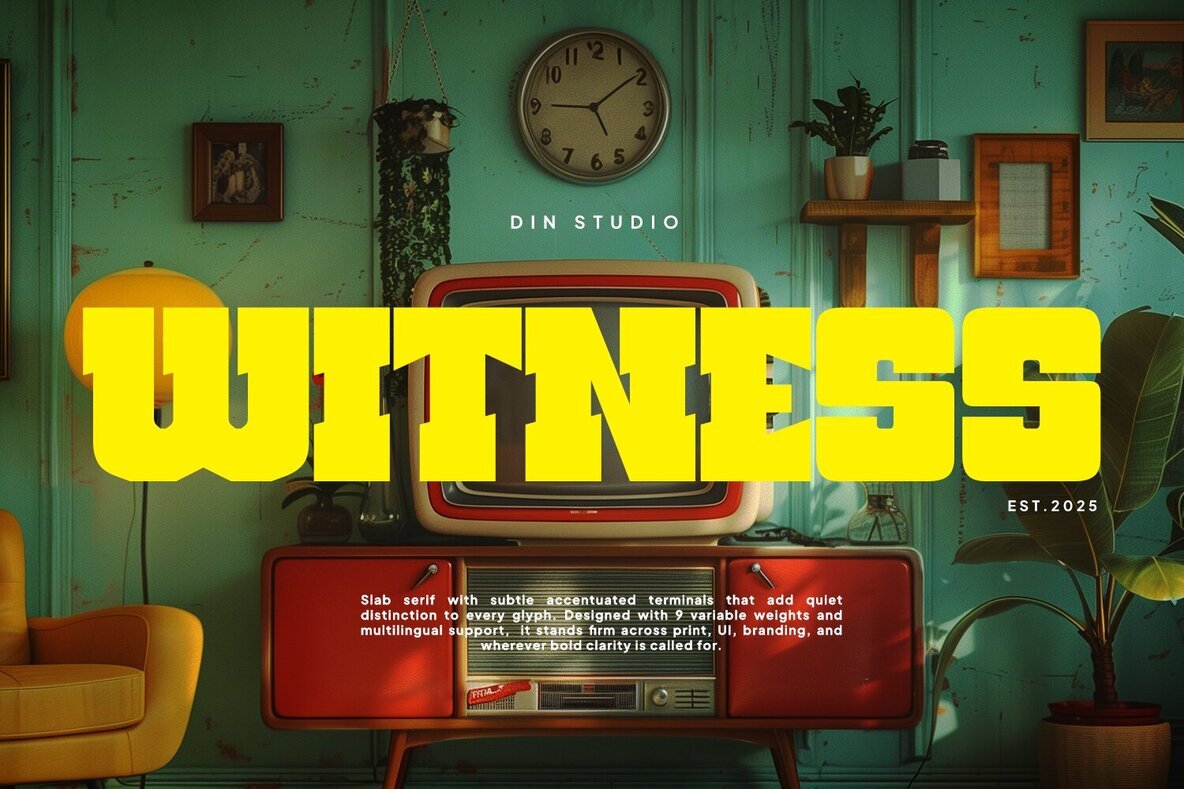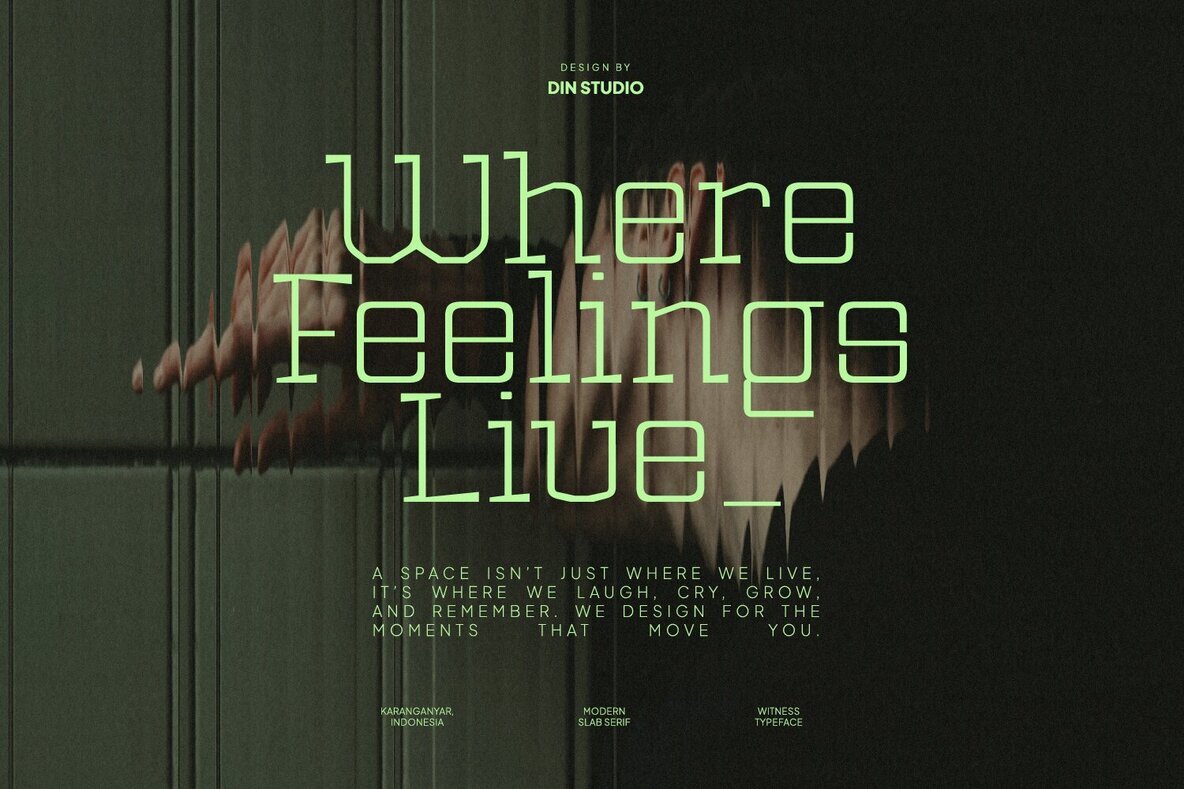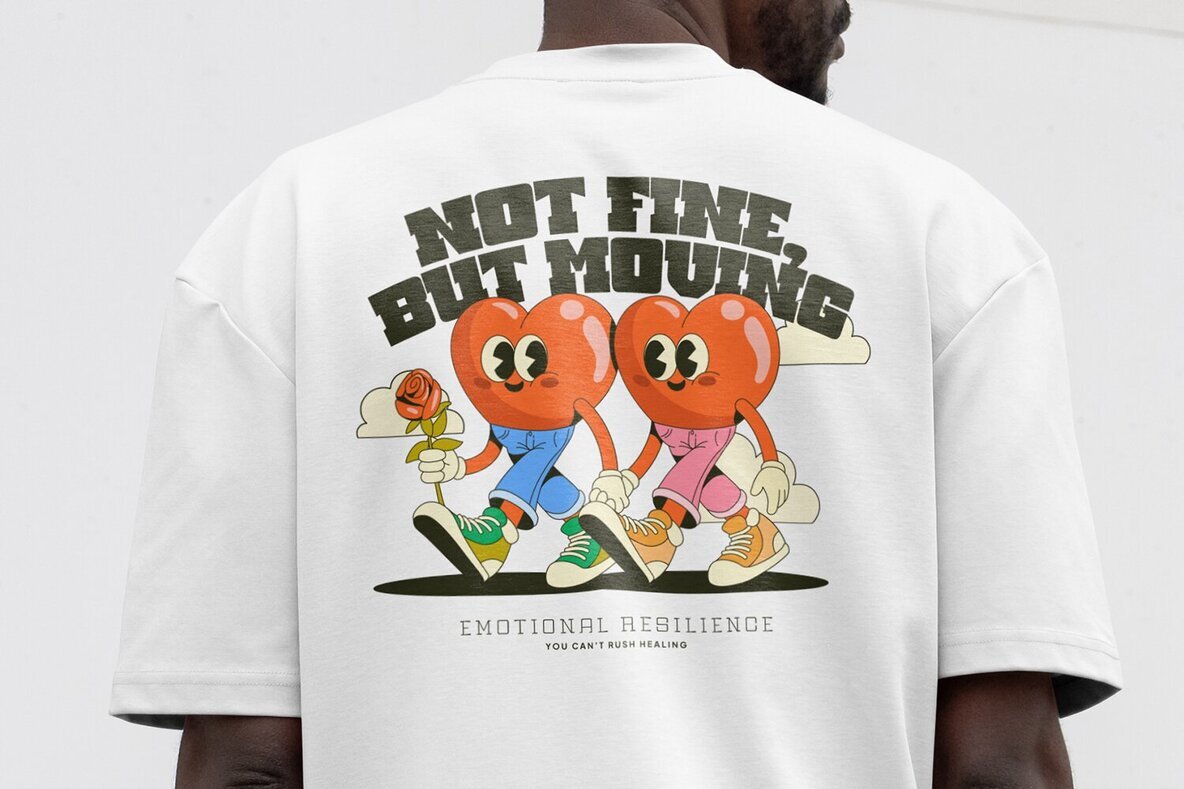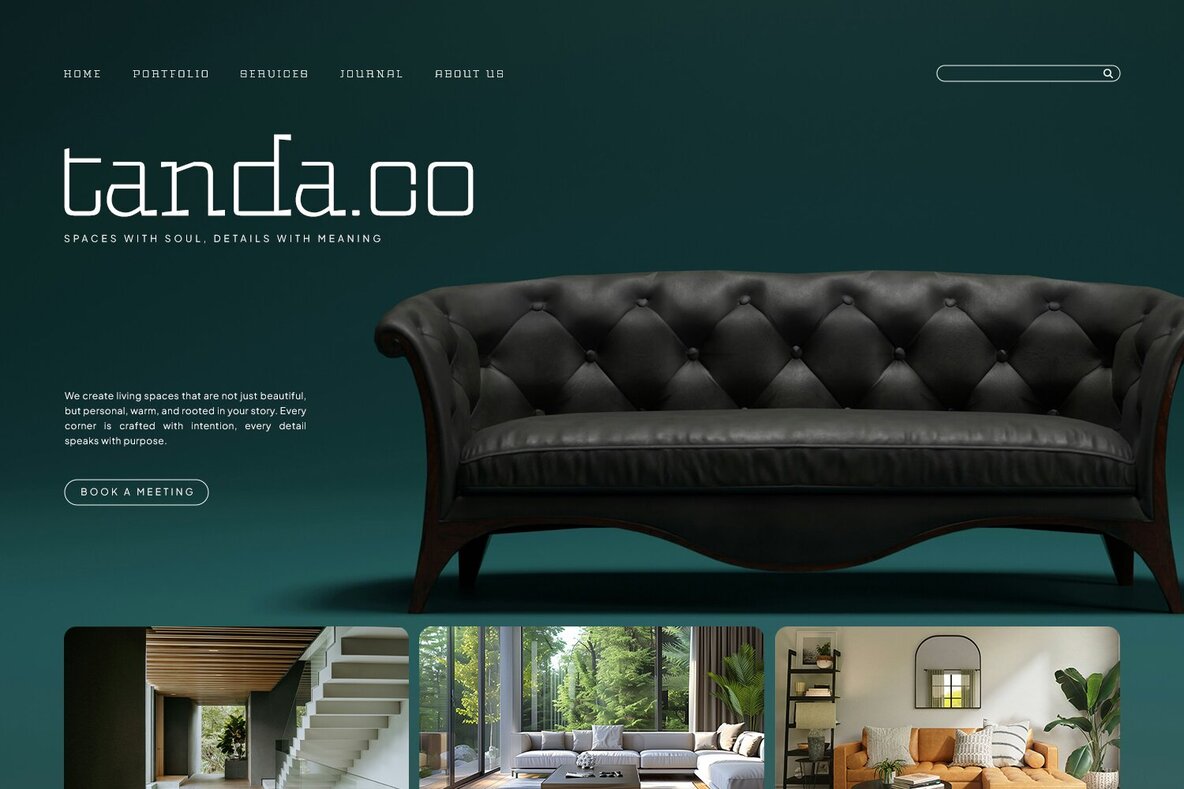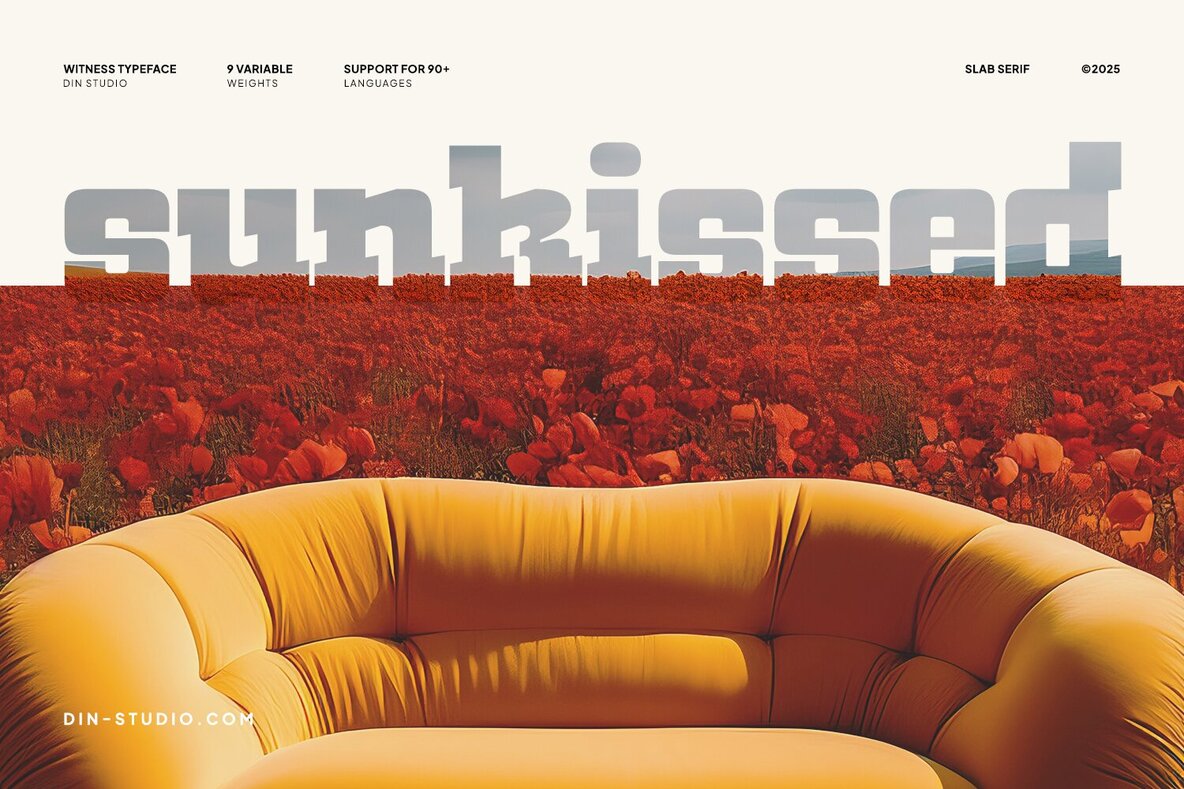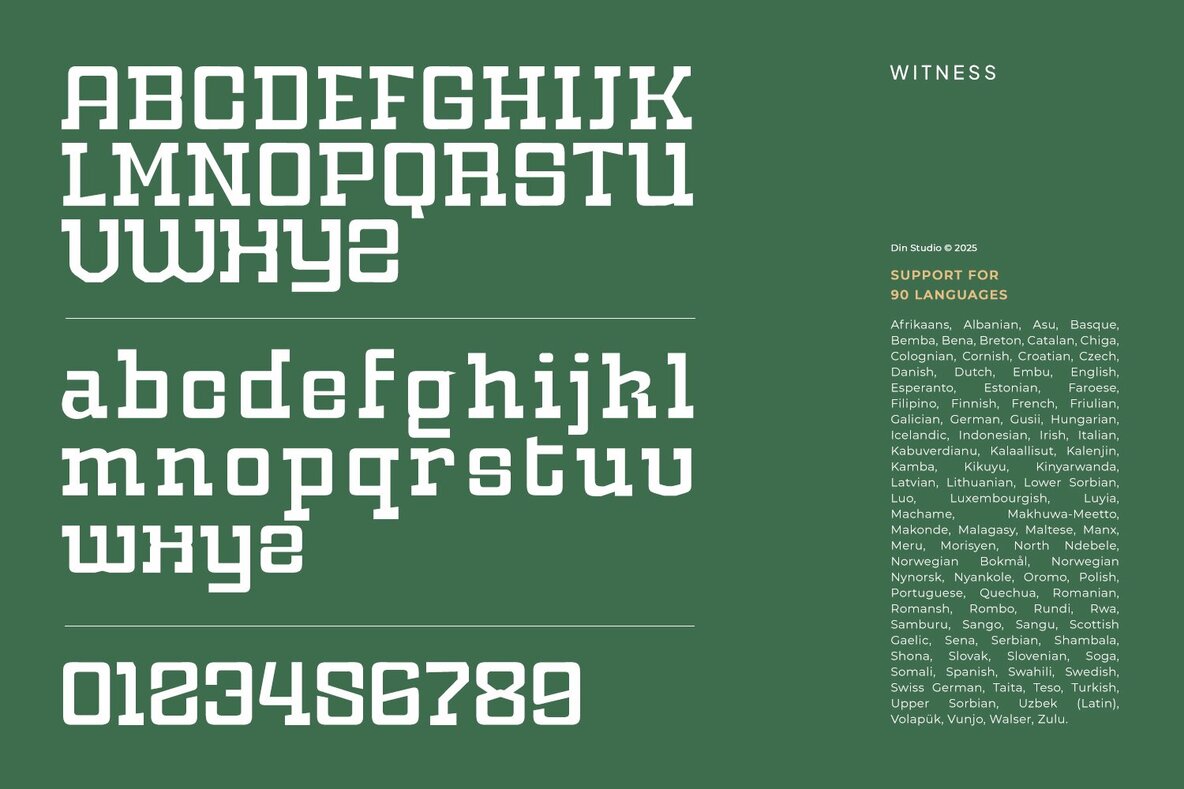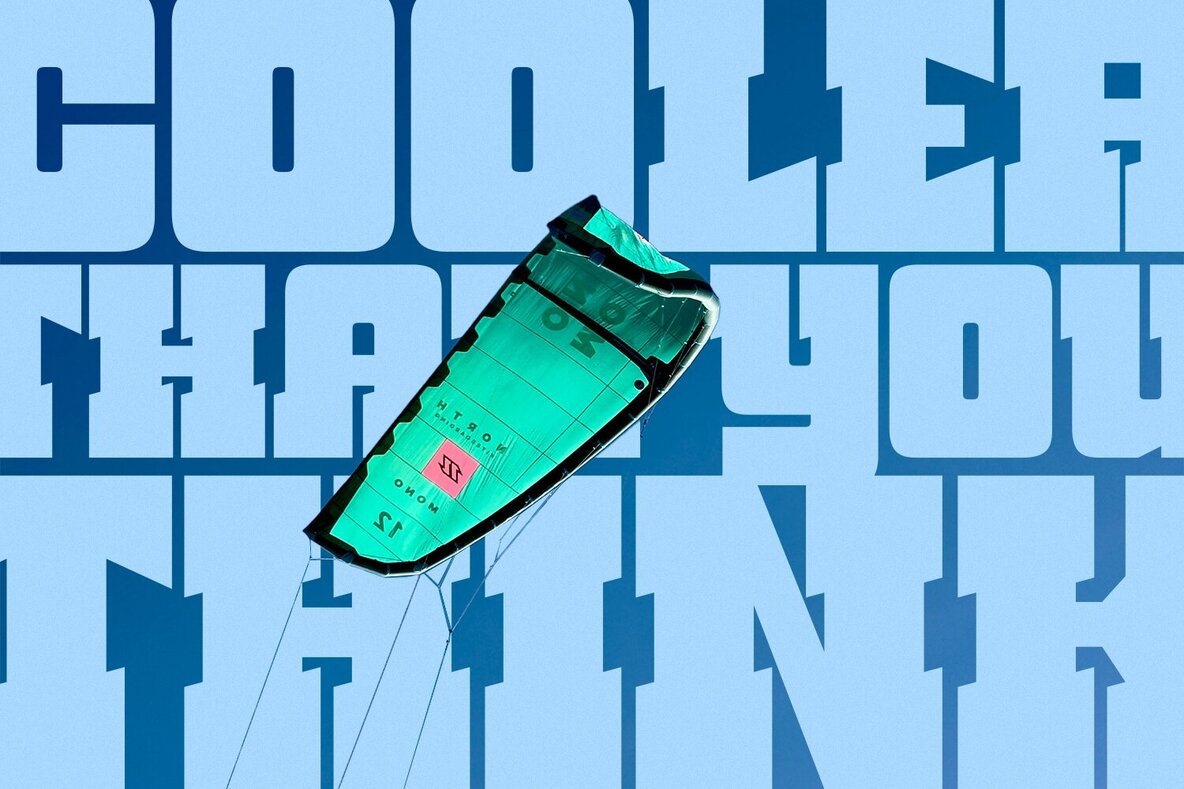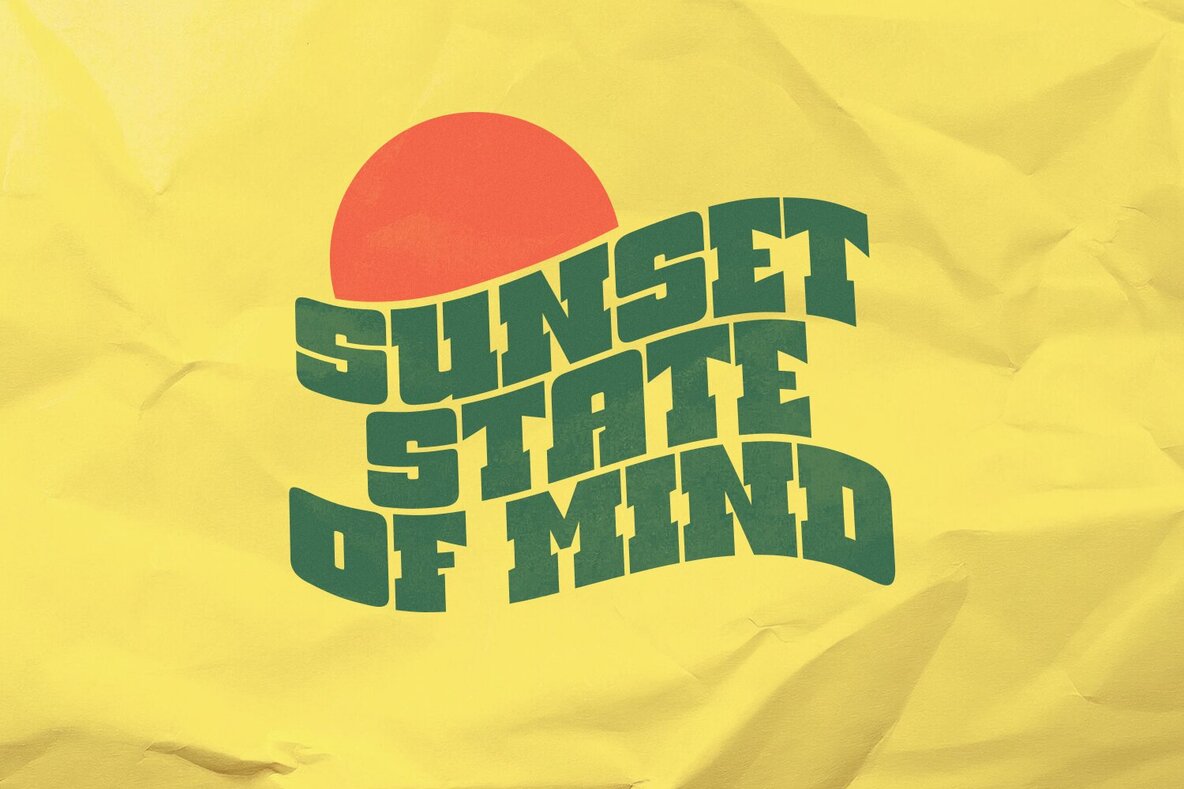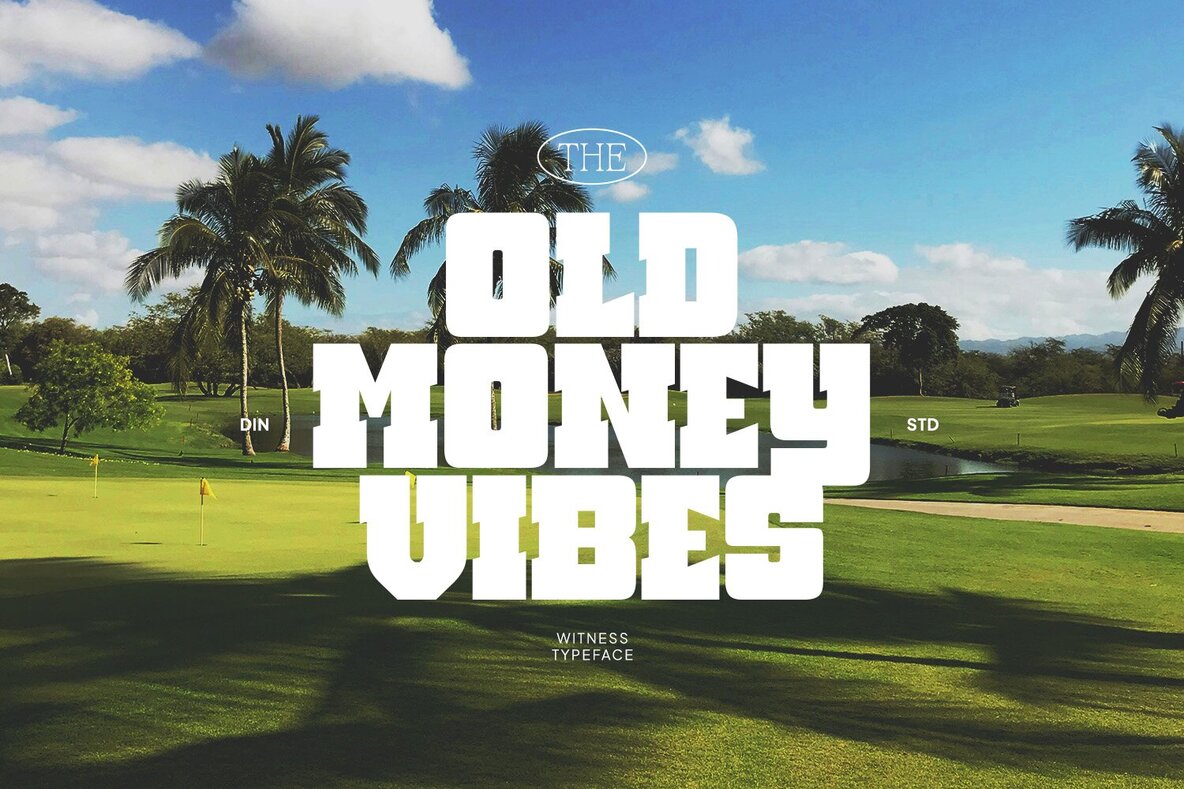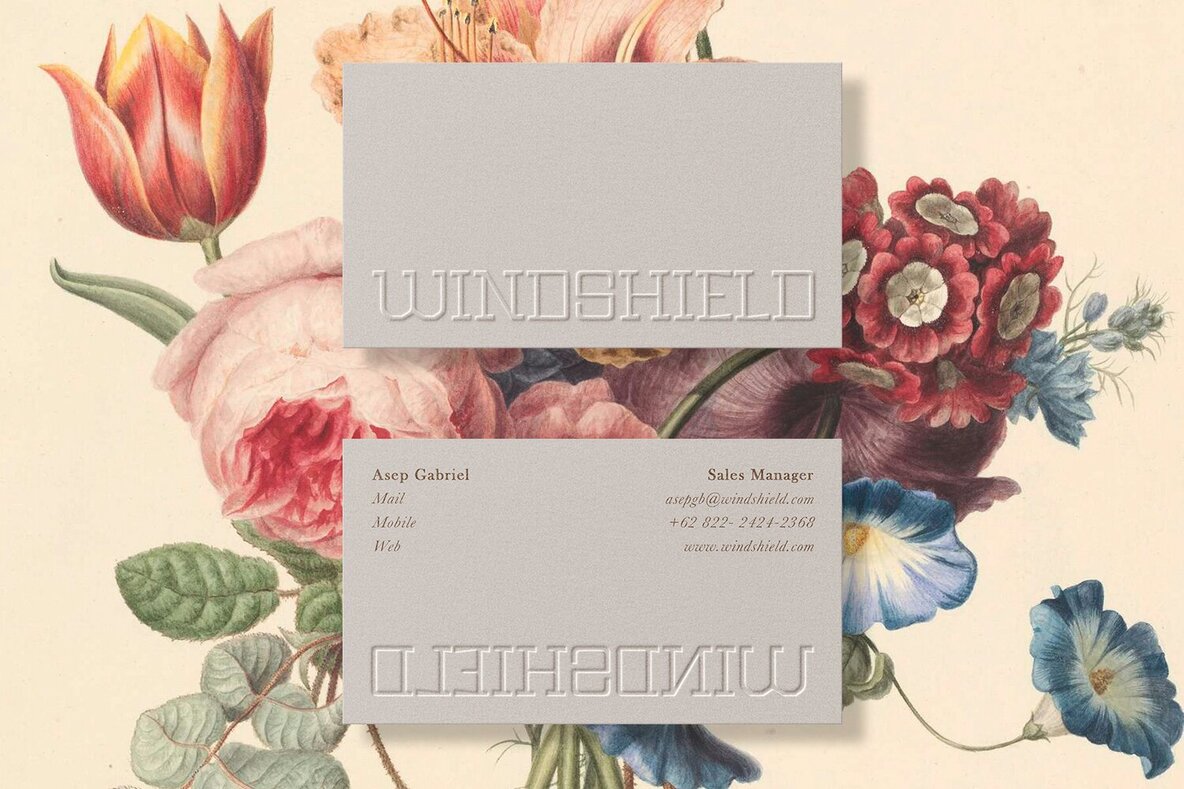
Witness Font
The Witness font family strikes a perfect balance between boldness and contemporary style, offering a slab serif elegance that designers will appreciate. Available in nine weights ranging from thin to black, Witness provides flexibility for diverse projects. Each weight is meticulously designed to uphold clarity and cohesion, making it suitable for headlines, body text, and display purposes. Its unique combination of rounded shapes and sharp angles delivers an approachable yet assertive aesthetic. Ideal for branding, quotations, business cards, apparel, logos, posters, and more, Witness adapts to various design needs. Explore its potential by viewing our font preview.Witness: Bold and Versatile Modern Slab Serif